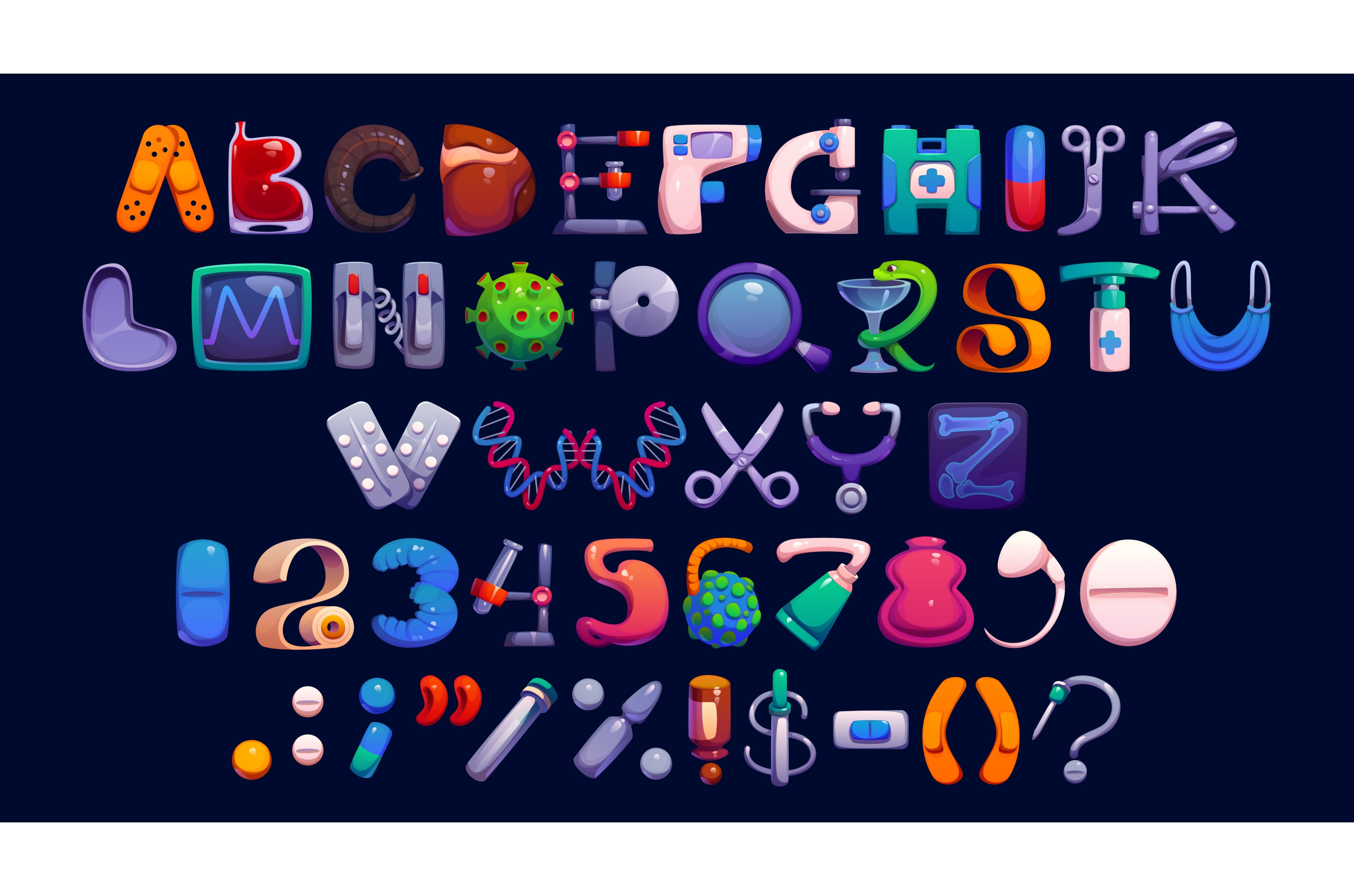
Medicine type, medical font
Medicine type, cartoon medical font, healthcare typeface, medical English alphabet, numbers and signs set with medical elements such as pills, dna strands, stethoscopes, masks, syringes and viruses